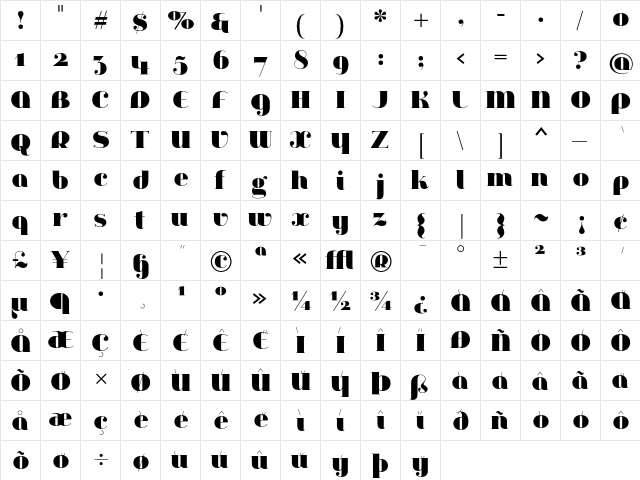
Jeanne Moderno OT Ultra
| Foundry | Steve Mehallo |
| Designer | Steve Mehallo |
Design Context for Jeanne Moderno OT Typeface
Jeanne Moderno OT is a composed and adaptable typeface that performs quietly and consistently across a wide range of design contexts.